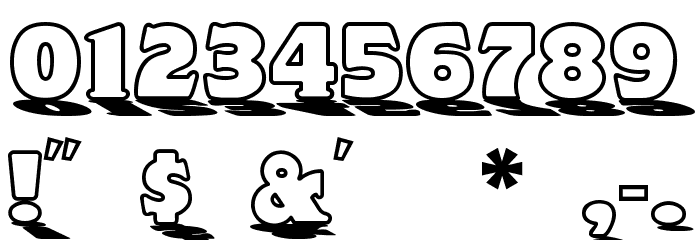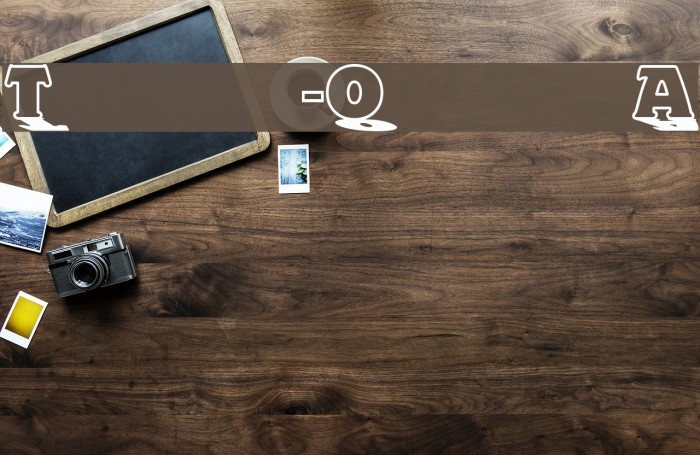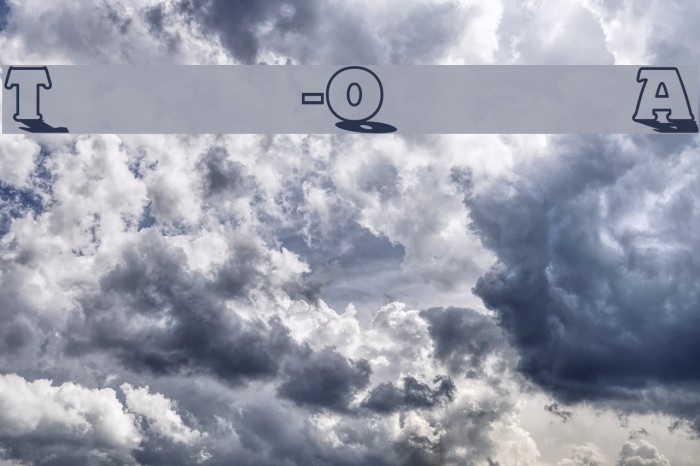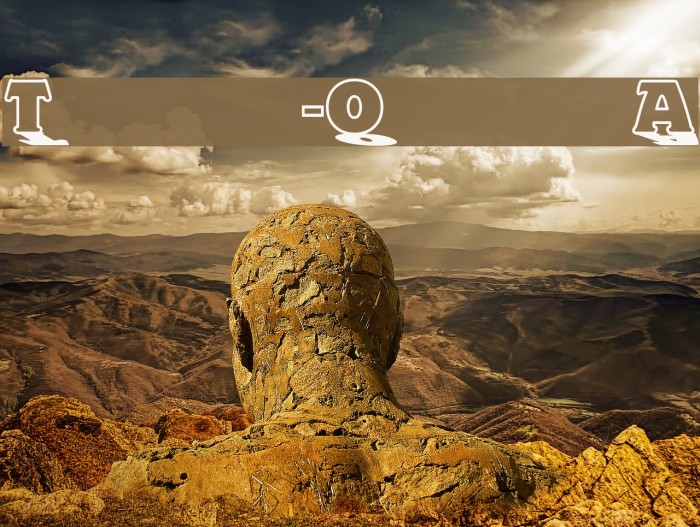
Toyland-OutlineA Font
This playful and bold font features an outline style with a shadow effect, giving it a three-dimensional appearance. The uppercase letters are prominent and eye-catching, making it ideal for designs that require a fun and engaging look. The numbers and special characters maintain the same outline and shadow style, ensuring consistency across all elements. The font's design is reminiscent of playful, child-like themes, making it suitable for projects aimed at younger audiences or those seeking a whimsical touch.
A playful, bold outline font with a shadow effect for a 3D look.
- Proposed Projects: Ideal for children's books, toy packaging, playful posters, and event invitations.
- Overall Style: Playful, Whimsical